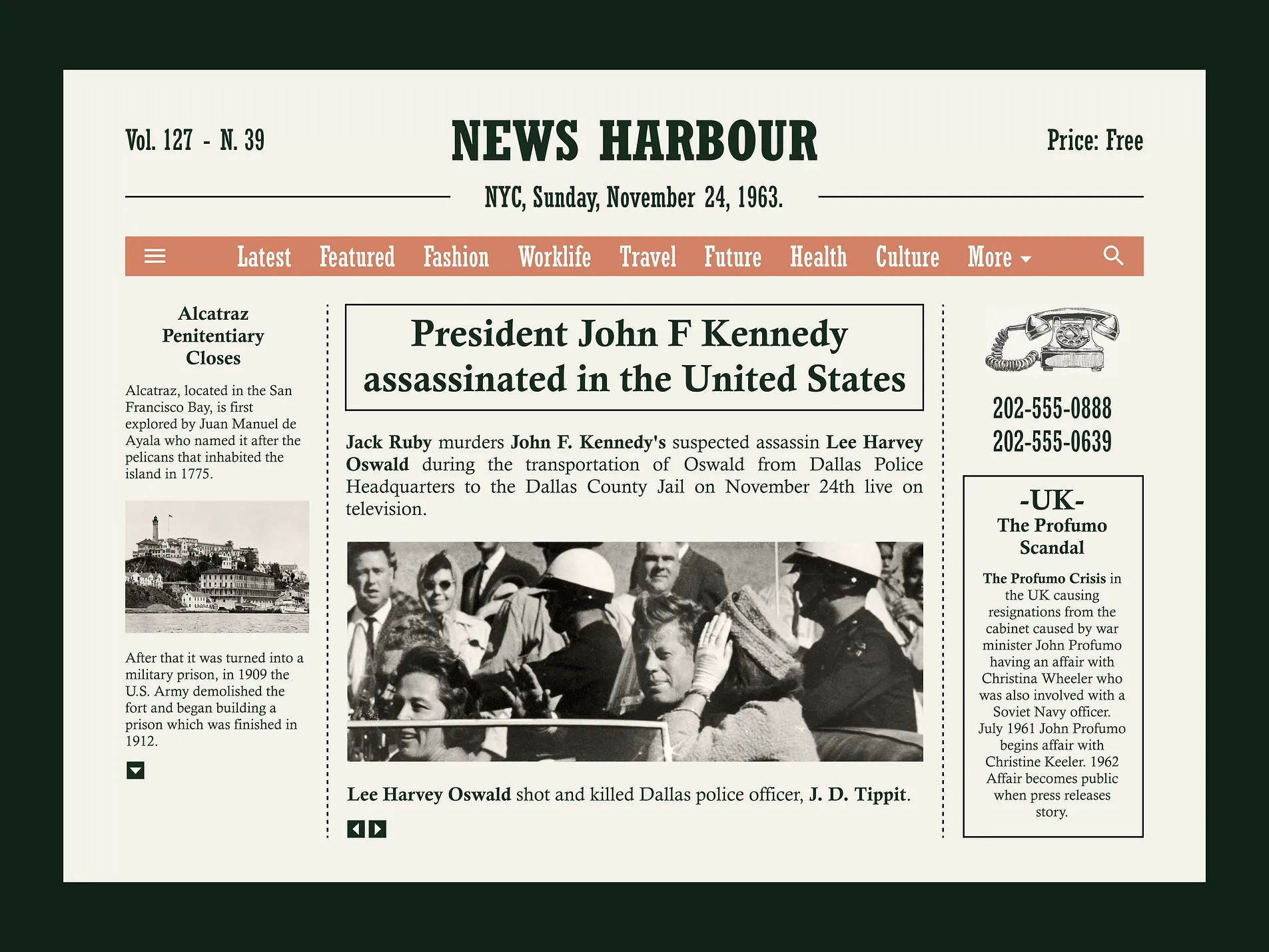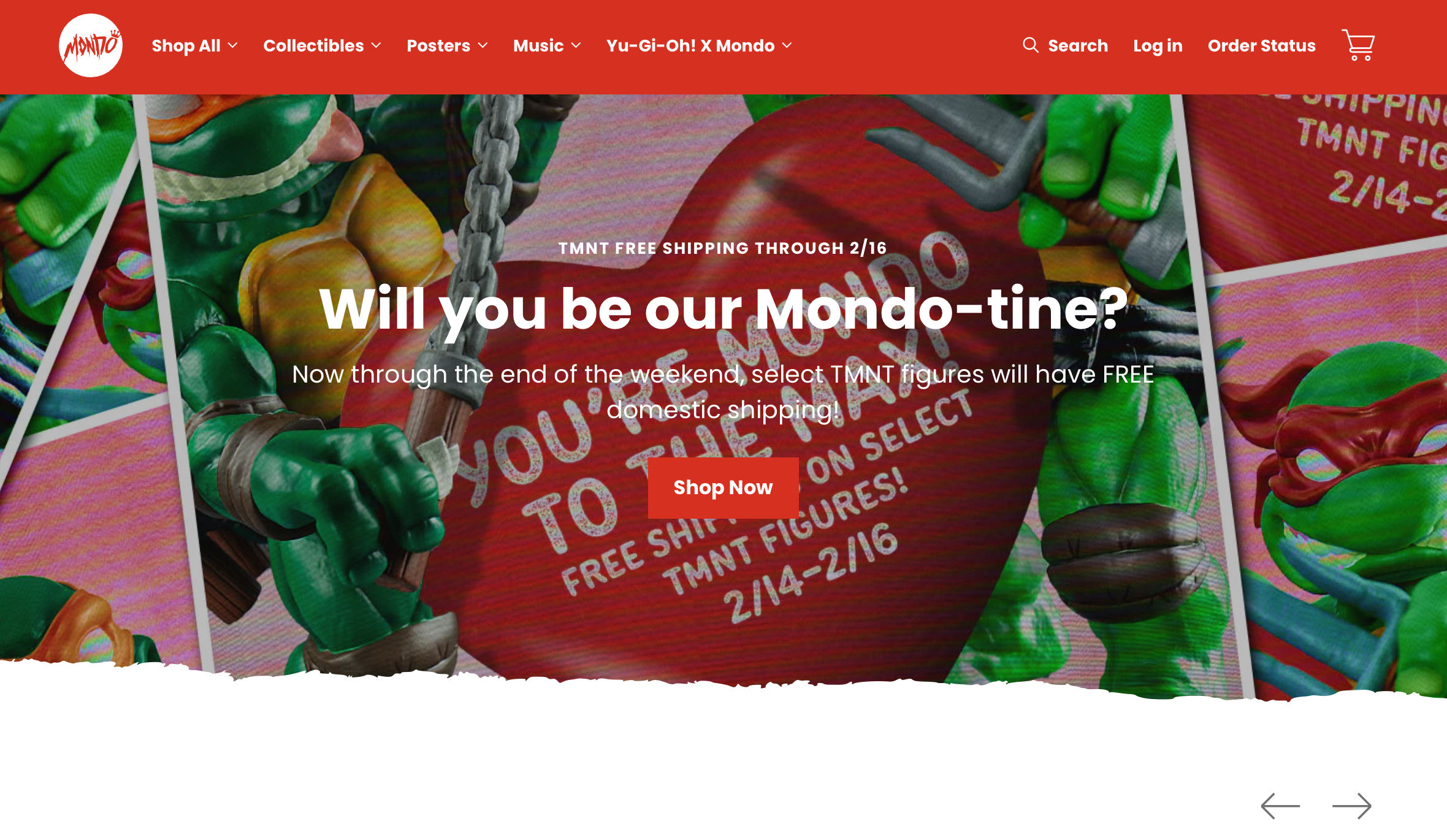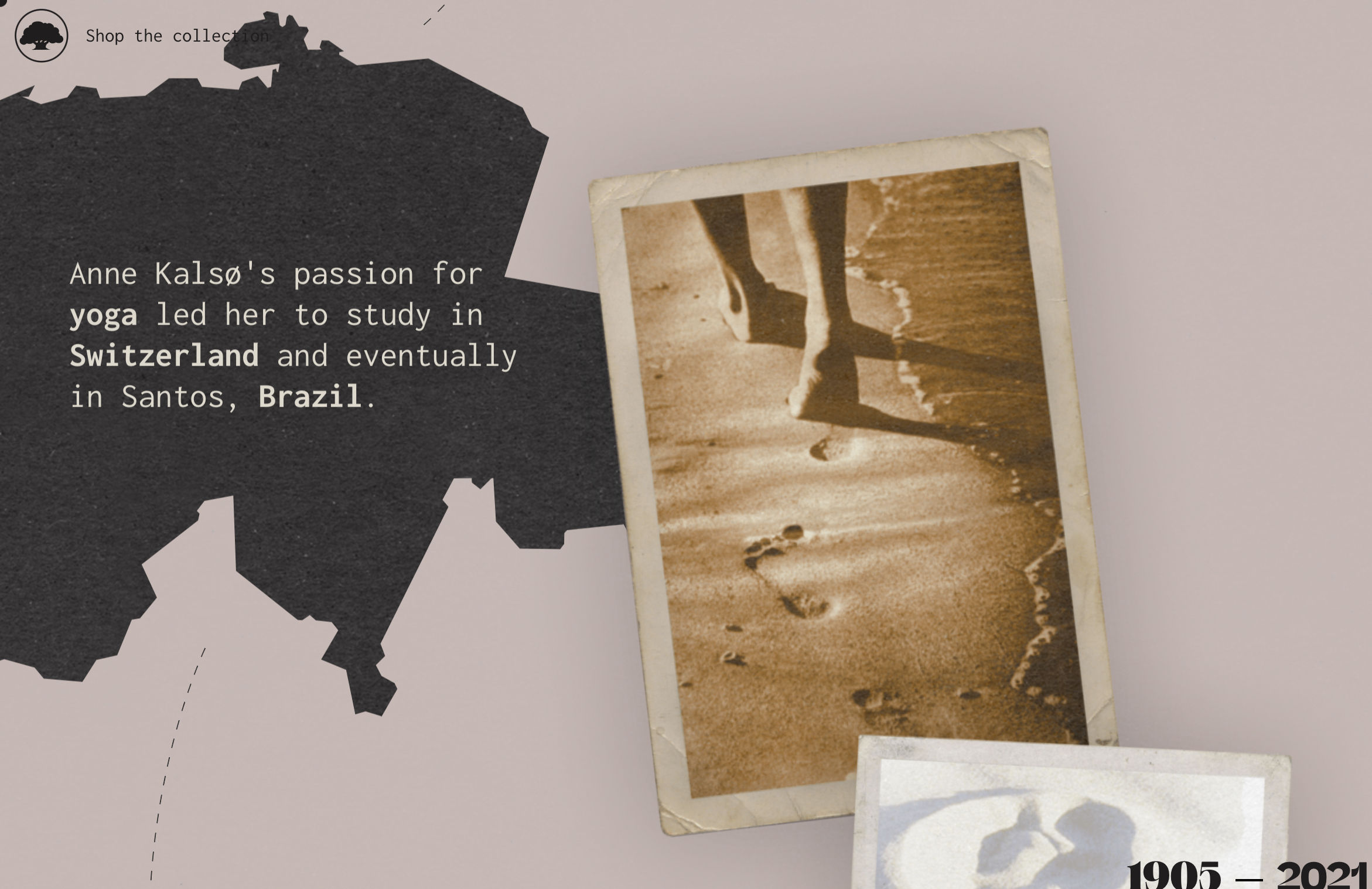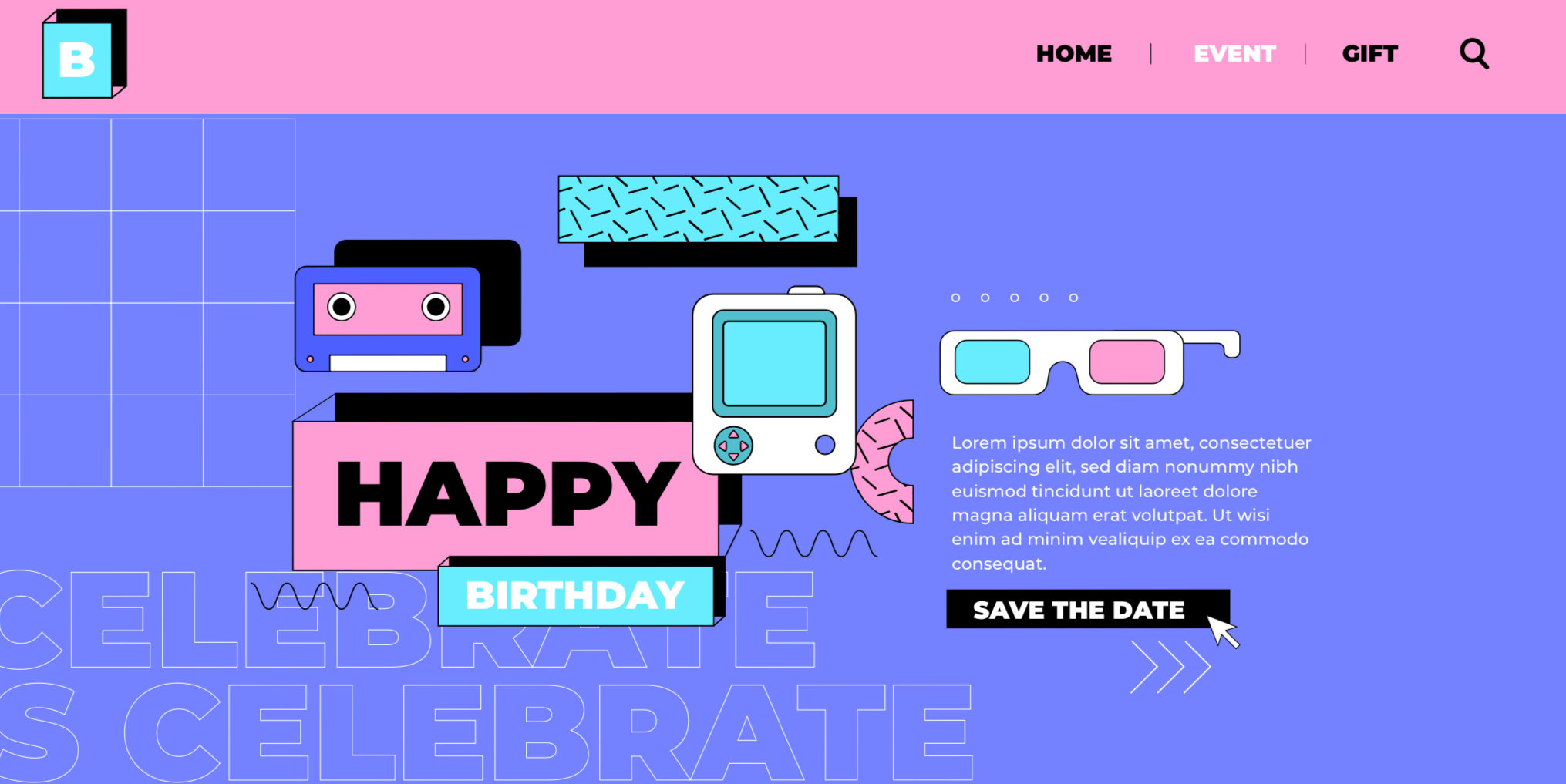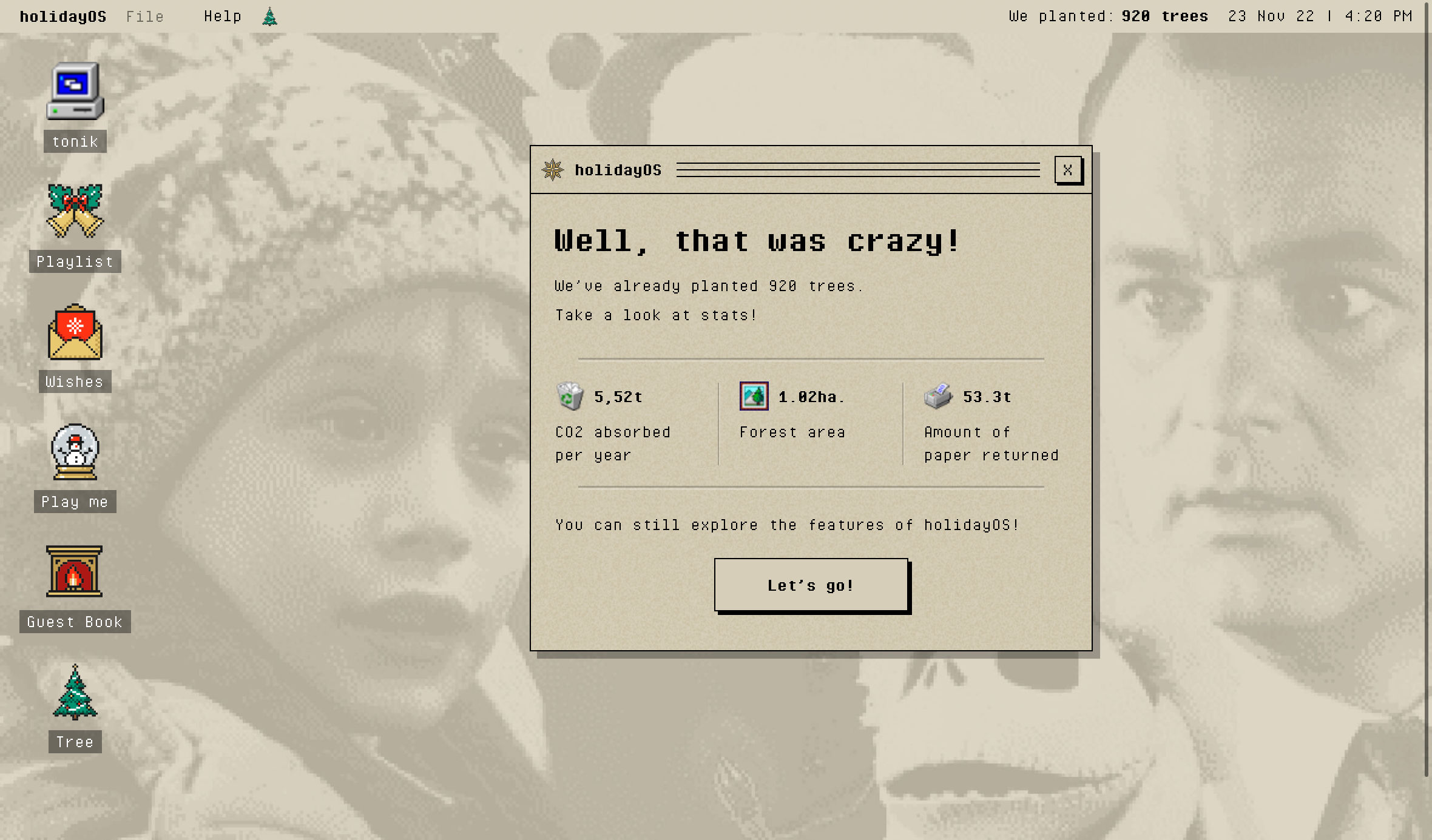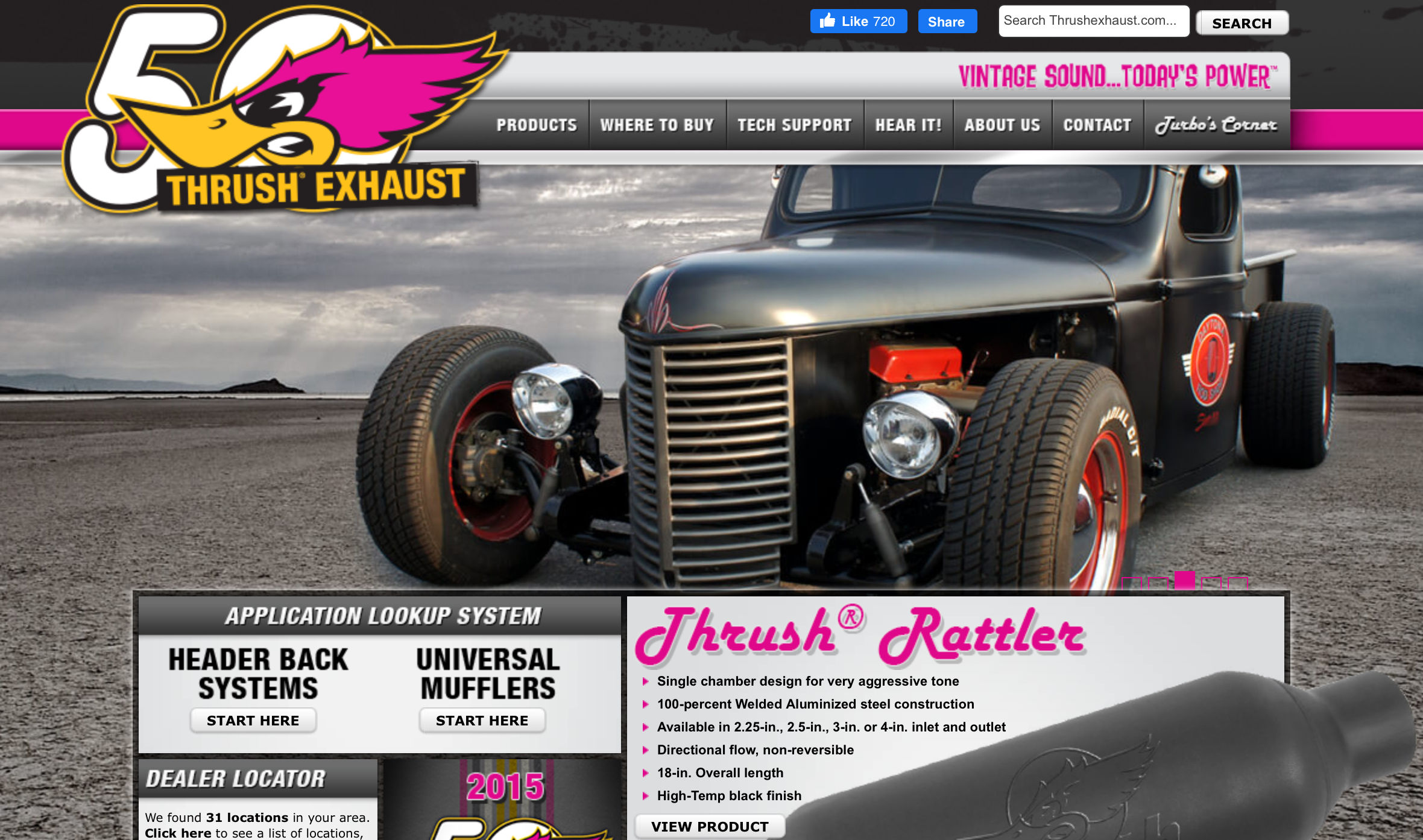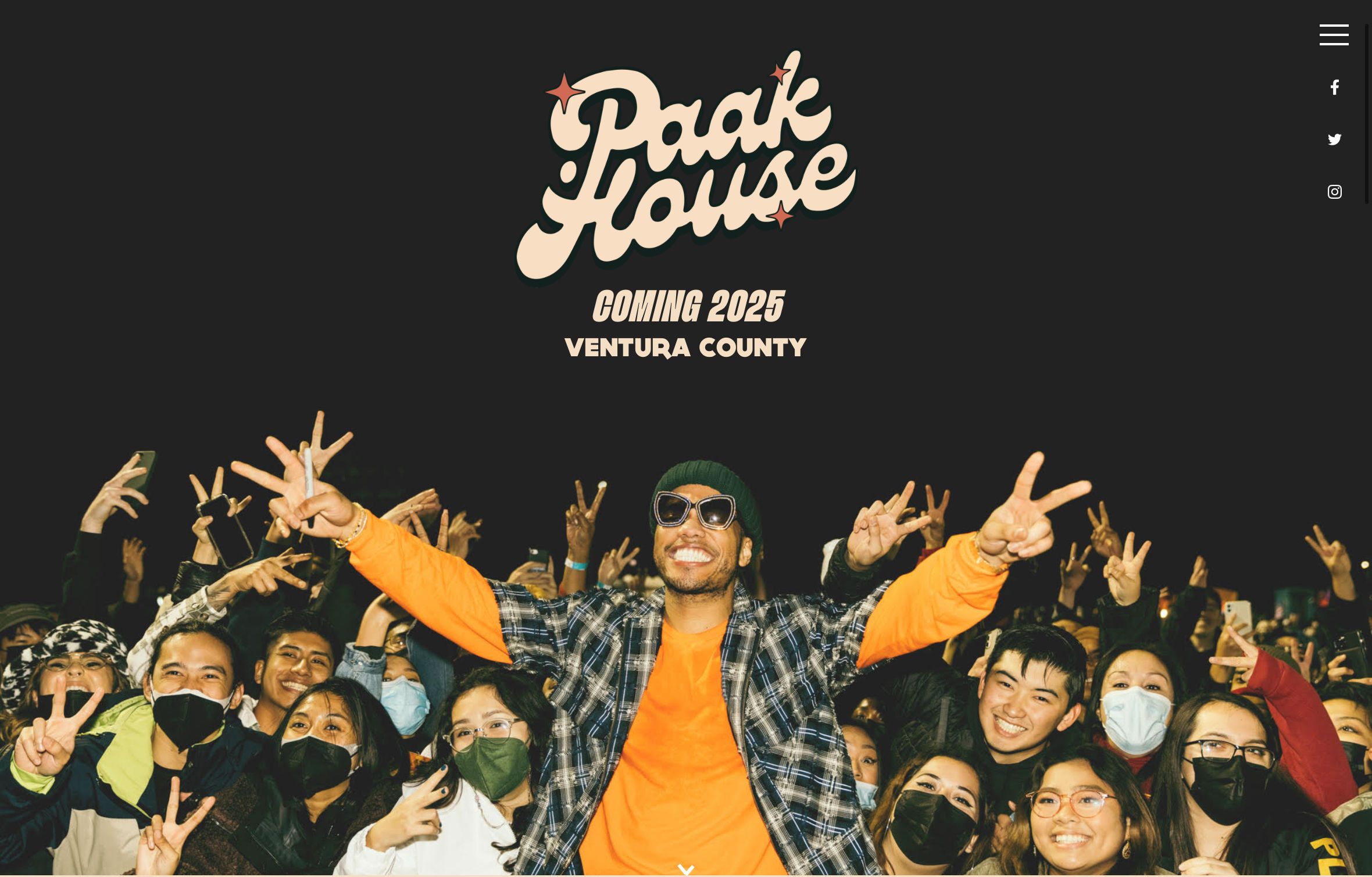
Users are most likely to be bored with the old web design look. It could be a sign for you to start upgrading the website and look into something new that will engage web traffic. Modern vintage web design represents a new glimpse to web visitors.
- Engaging web design with modern vintage and retro vintage styles.
- Tips to elevate user’s experience with a fresh look of web design.
- Fresh web design could impact website traffic and customers’ decision-making when purchasing products.
Incredible Modern Vintage Web Design Reviews
You can see vintage web design when the website looks at recalling trends in the past. It could bring users to nostalgia through the style. Modern vintage web ideas bring technology to engage user experience. It could be the typography, color, and elements. Here are some ideas to evoke a sense of the past in your web design.
1. Playful Doodle with Retro Typography
To start off the discussion, take a look at a mental health support website, To Be Honest. They are pulling playful vintage concepts with a focus on retro typography and additional interactive doodle elements. It could be a great idea to build up connections with Gen Z through Y2K-style web design.
2. Fun Imagery Retro Design
Consider something that looks fun and cheerful, imagery retro design would be a great idea to attract young users to visit your website. The combination of vibrant colors, layering elements, and textures successfully pulls the vintage vibe.
However, pay attention to the layering technique to elevate the look and do not make it look too complex. Examine the grid placement in the center and somewhere else so that it is not too piled up.
3. 70s-Inspired Web Design
Next up, the 70s web design style will look good to bring up the old memory with iconic pixelated icons and iconic typography. The iconic screen bar with a vintage Windows look-alike adds some taste of a retro vibe. If you want to make it more 70s, determine to mix the colors such as brown and grey.
4. A Clean Vintage Web Design
Vintage is most likely to be classic and does not always require multiple elements and layering techniques. A clean design look with a minimalist color palette and vintage image are a great pair to represent old charm. Regardless, put fewer elements and use simple typography such as Sans Serif fonts to be the center focus.
5. A Perfect Match for Website and The Products
Owning a business is not only to think about the product itself, you have to consider choosing the perfect design match for the website. A vintage web design that represents vintage products becomes an ideal review to put the focus on the brand identity.
The product image placement highly matters to engage customers’ interest and decision-making to purchase the product. A blend of vintage web design and the product would increase users’ experience while shopping for products through the website.
6. Magazine Look-Alike Retro Web Design
When digital did not exist yet, magazines were happening back then. Thus, to recall the old memories, magazine look-alike design becomes a good choice to bring back the vintage vibe. Combine a single soft color with retro typography and image focus to enhance the harmony of the magazine style.
7. Bold Retro Web Design
Try to do some experiments with the retro vintage web design by making it look bolder and complex. You can combine some fonts with vibrant colors to establish the look of the web design. The purpose of those bold icons and typography is to point out the brand’s identity or slogan and to spotlight the available service.
8. Hand-Painted Icons Retro Design
To highlight the retro design of your website, put hand-painted elements such as brand logo or icon product on the homepage. The hand-painted element can be blended perfectly with retro typography and mixed with a single color.
9. 70s Vibrant Aesthetic
Let’s get the groove of a 70s vibe with bold typography, a monochrome background, and sharp color for the image. This design represents a vintage look for a 70s music album that has groovy typography as the main focus. The nostalgic web design will elevate users’ experience since it is a reminiscence of the old-school vibe.
10. Bold and Vivid Vintage Design
Bold with high contrast could be a modern vintage web design idea that gives a fresh look. The key to create this look is the typography option that is used against the negative space. To make it more vivid, a color palette is also used to highlight interactive elements and typography.